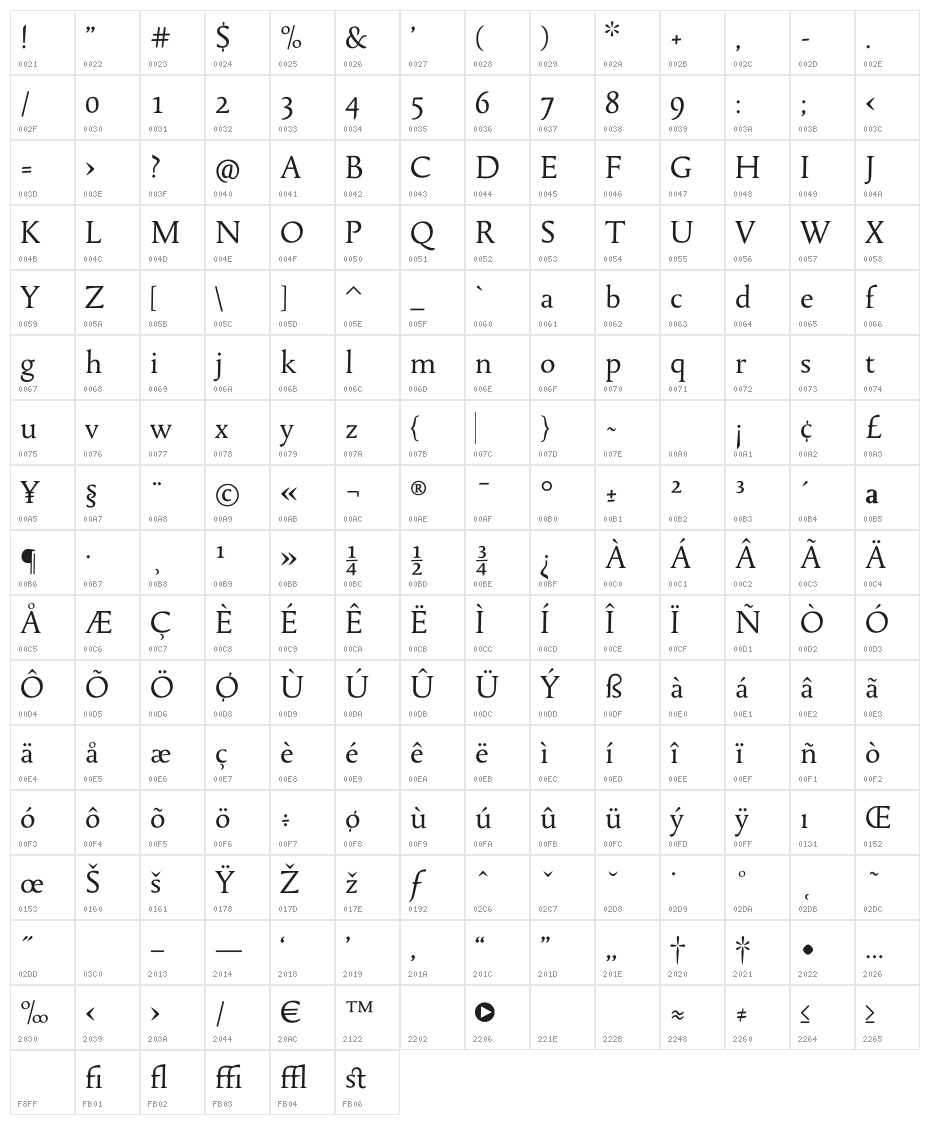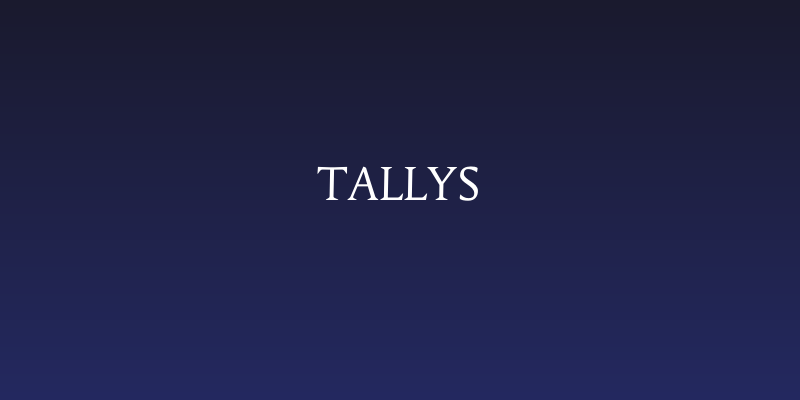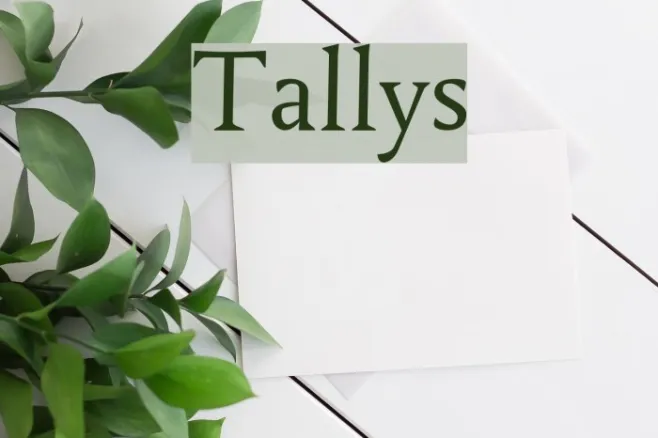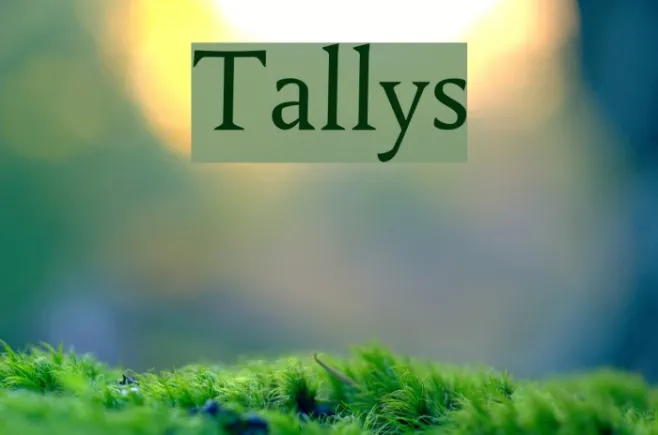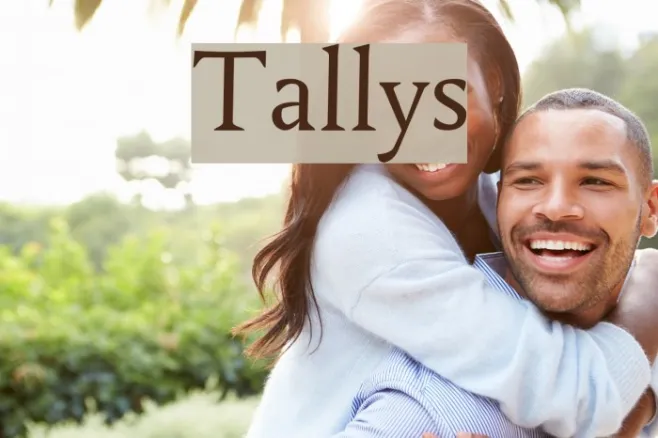
Tallys Font
Tallys Description
This font features a classic serif style with elegant, slightly curved serifs that add a touch of sophistication. The characters are well-proportioned, offering a harmonious balance between thick and thin strokes, which enhances readability. The uppercase letters are bold and commanding, while the lowercase letters maintain a graceful flow. Numerals are clear and distinct, making them suitable for both text and display purposes. The special characters are designed with the same attention to detail, ensuring consistency across all glyphs. This font exudes a timeless quality, making it versatile for various design applications.
| Proposed Projects | Ideal for book covers, editorial design, branding, and formal invitations. |